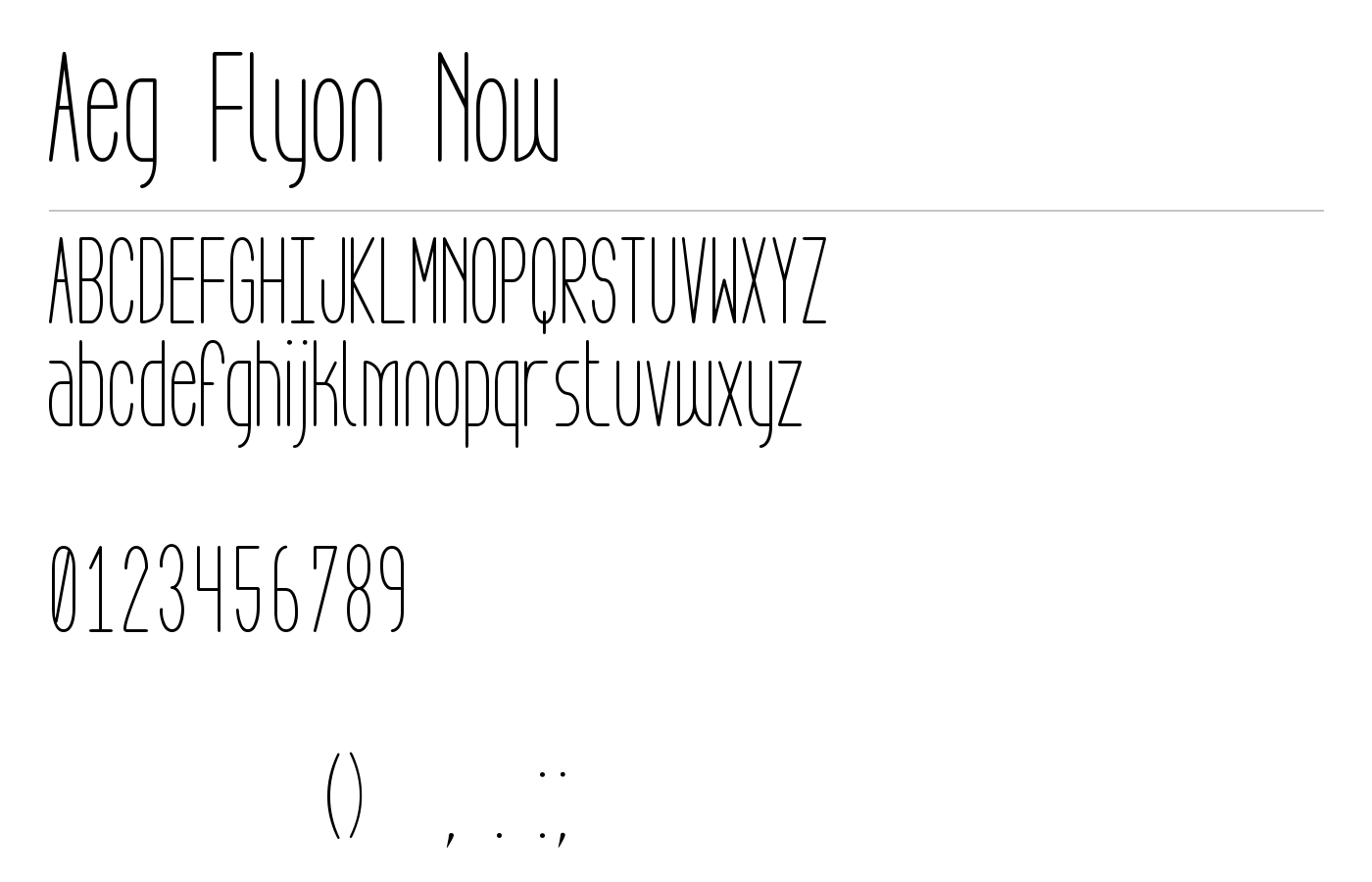
Aeg Flyon Now is a slender, condensed sans serif font with a tall x-height and fine, consistent stroke weight, creating a clean and modern appearance. Its narrow letterforms and minimalist design give it a sleek and futuristic feel, making it well-suited for contemporary branding, headlines, and editorial use where a distinctive yet subtle style is desired. This font works best in designs that require elegance and clarity without sacrificing a unique personality.
Aeg Flyon Now Font
About Aeg Flyon Now Font
| Designer | kaiser zhar khan |